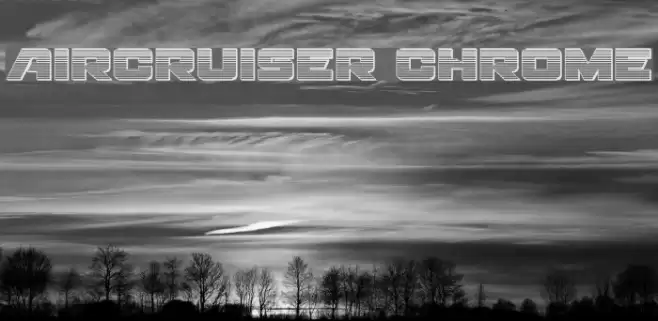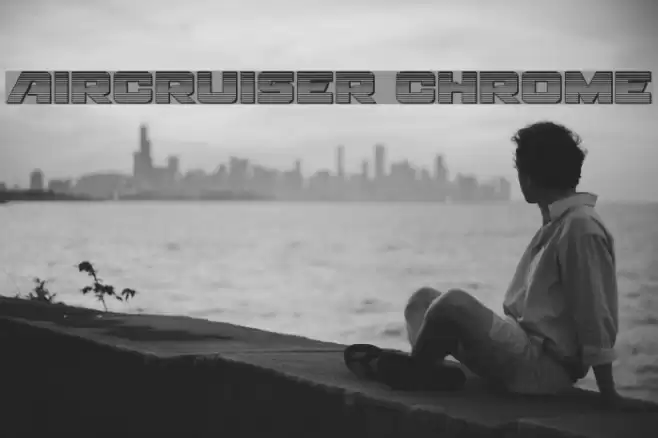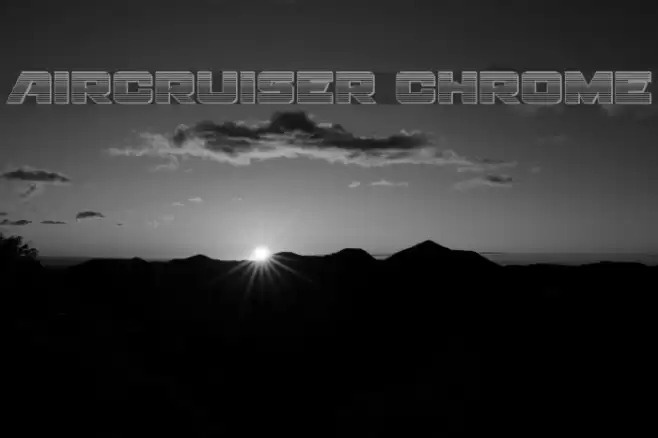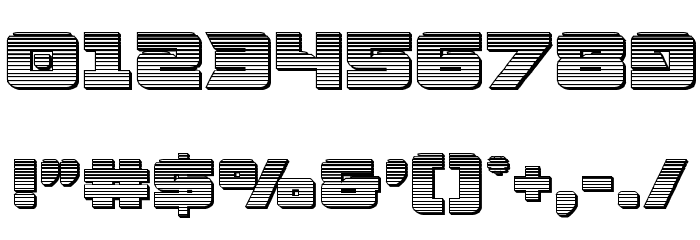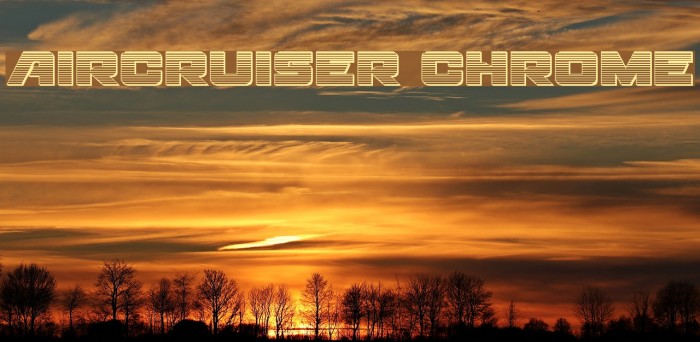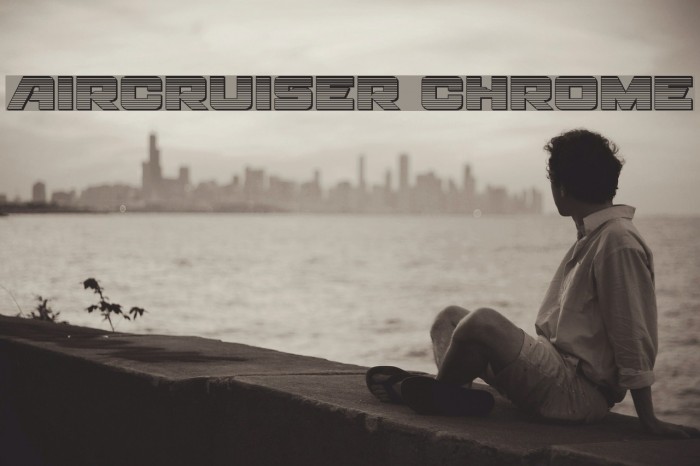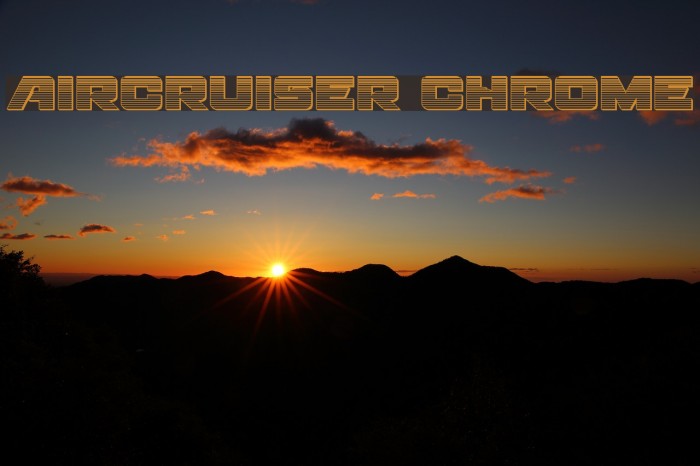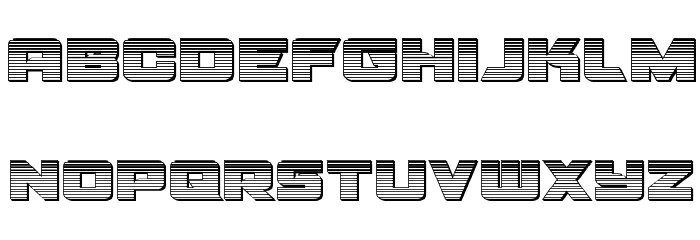
Aircruiser Chrome Font
Aircruiser Chrome Description
This font features a bold, futuristic design with a chrome-like appearance. Each character is composed of multiple horizontal lines, creating a layered, three-dimensional effect. The uppercase letters are distinct and geometric, with sharp angles and a sense of movement. The numbers and special characters follow the same design principles, ensuring consistency across all glyphs. This font's unique style makes it ideal for projects that require a modern, tech-inspired look.
A bold, futuristic font with a chrome-like, layered design from Uncategorized fonts.
- Proposed Projects: Ideal for sci-fi themed posters, technology branding, video game titles, and futuristic event invitations.